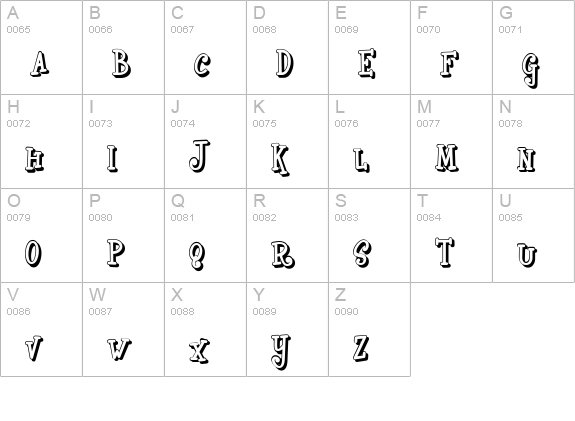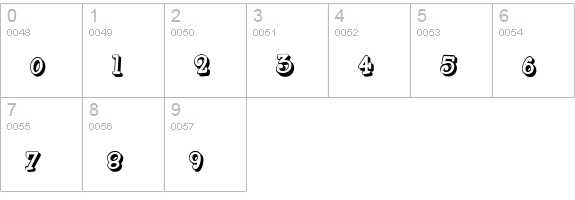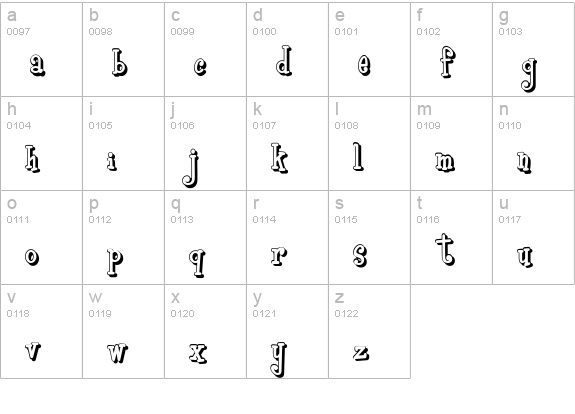
Boyz R Gross Shadow NF font is a bold and playful typeface that adds a touch of attitude to any design project. With its thick, shadowed outline and quirky style, this font is perfect for creating eye-catching titles, headers, and logos. The unique design of Boyz R Gross Shadow NF font gives off a cool and edgy vibe, making it ideal for projects targeting a young or trendy audience. What makes Boyz R Gross Shadow NF font even more appealing is that it is available for free download at FontsMarket.com. This means you can easily access this fun and versatile font to use in your personal and commercial projects without any cost. So go ahead and add a touch of boldness and personality to your designs with Boyz R Gross Shadow NF font today!